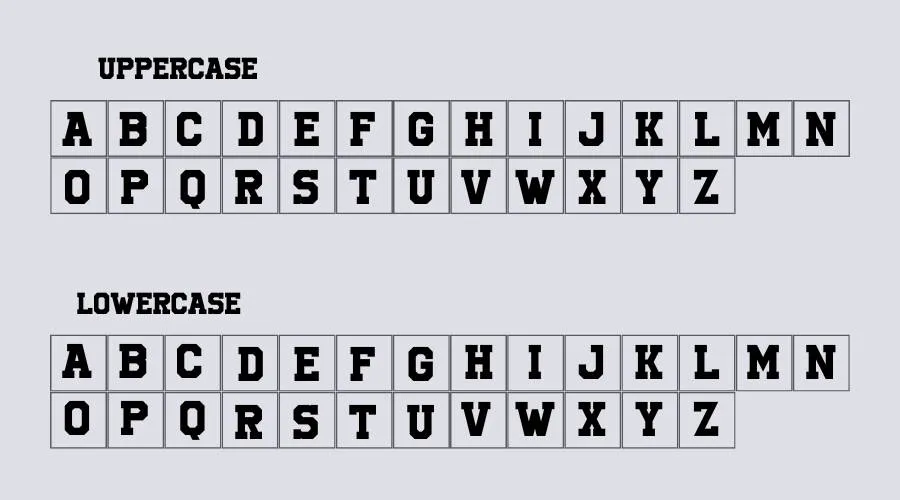
About University Font
University Font is a bold and eye-catching display typeface created with the purpose of making an impression. Designed by Geronimo Font Studios, This font family contains 62 different characters including symbols, punctuation, uppercase letters, numbers, etc.
This typeface has been crafted to make a statement and stands out amongst other typefaces perfect for adding a touch of flair to your design work. The character outlines are slightly wider than other fonts giving each letter a unique appearance, with the option of adjusting the font weight to give the text added depth.
To further individualize the font, alternate letters can be created to add even more characters using alternating glyphs to give the text an element of surprise and intrigue. For example, a mix of wide, tall, and condensed characters can be used to create a font that is eye-catching and memorable.